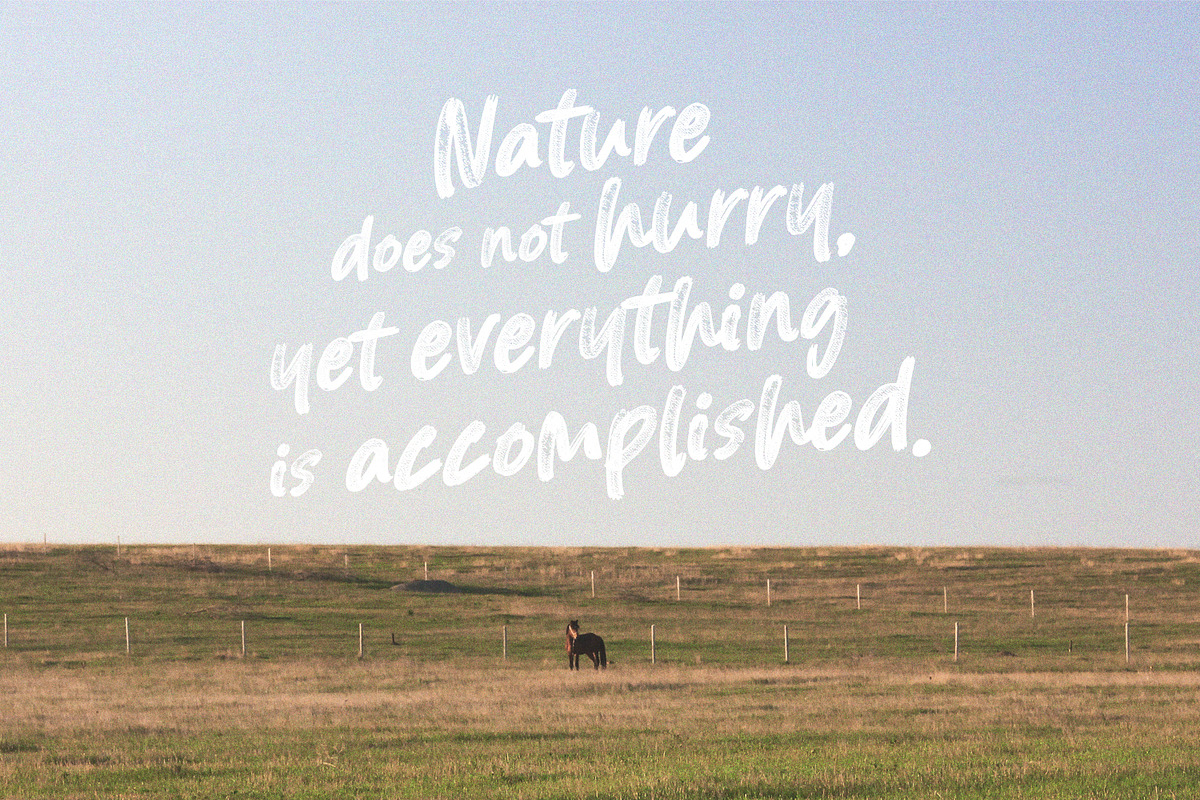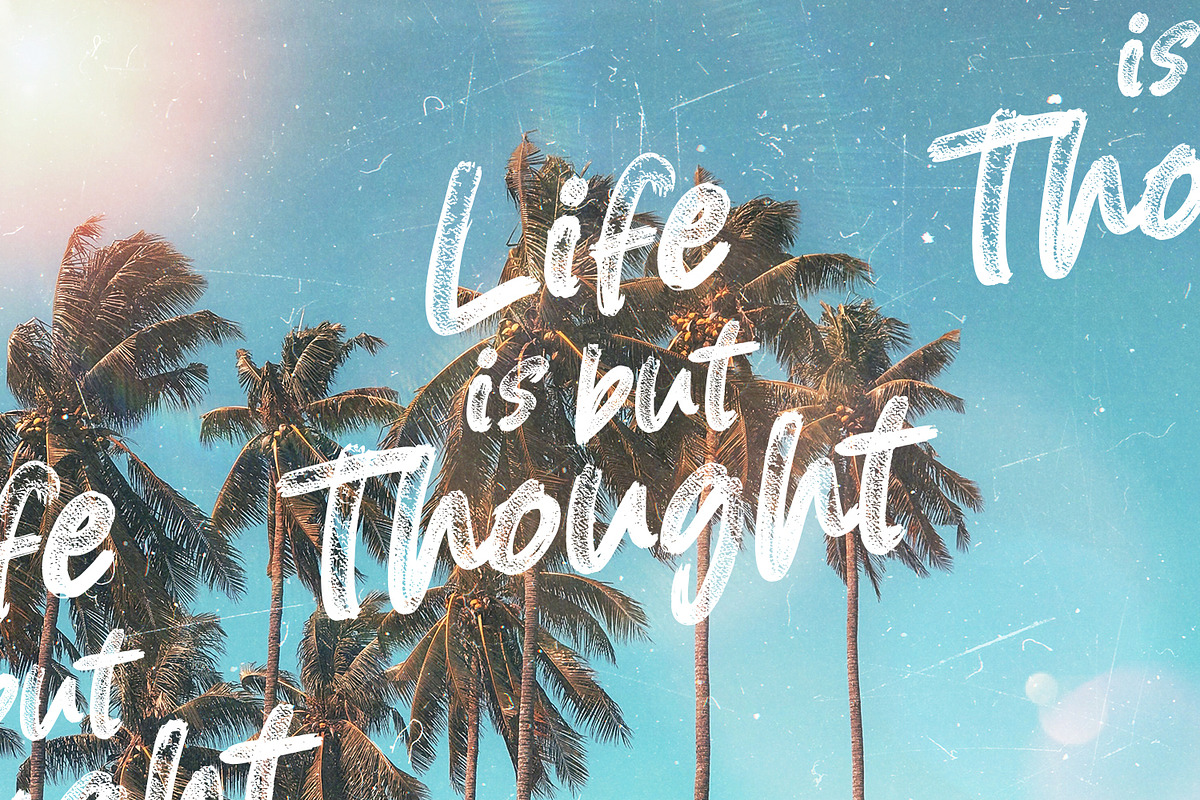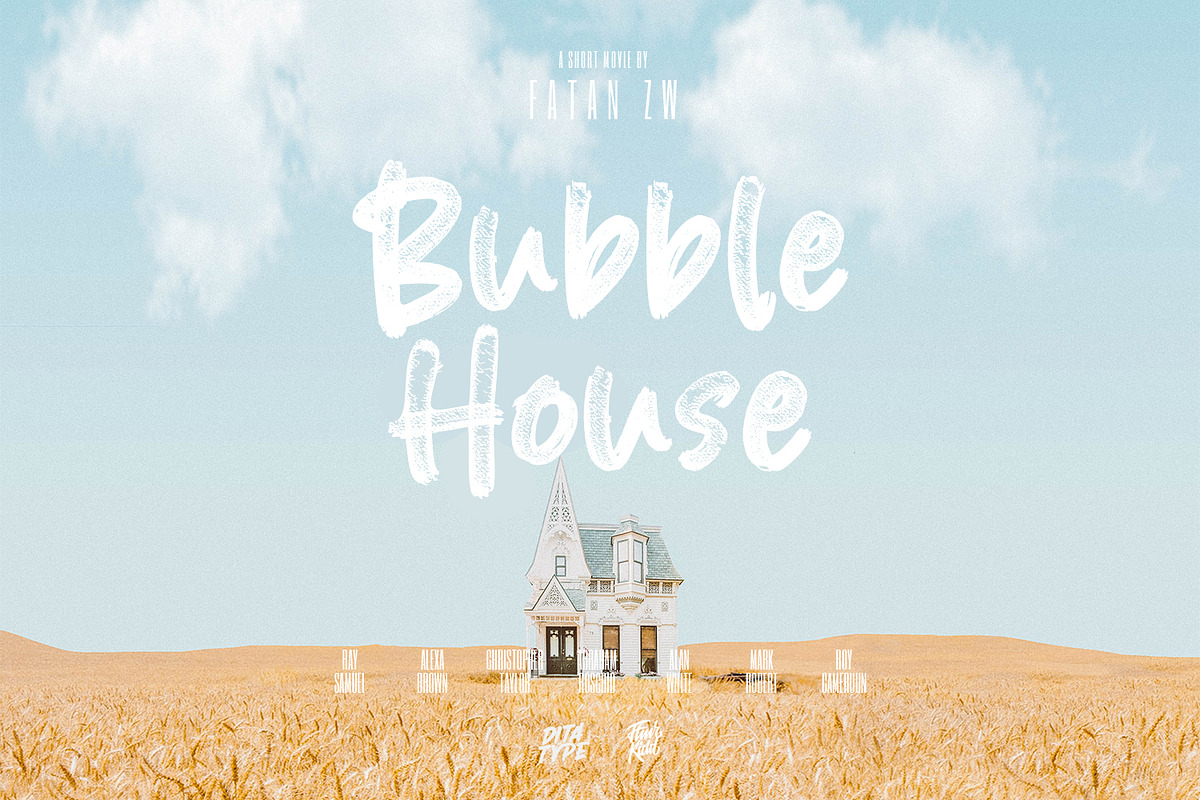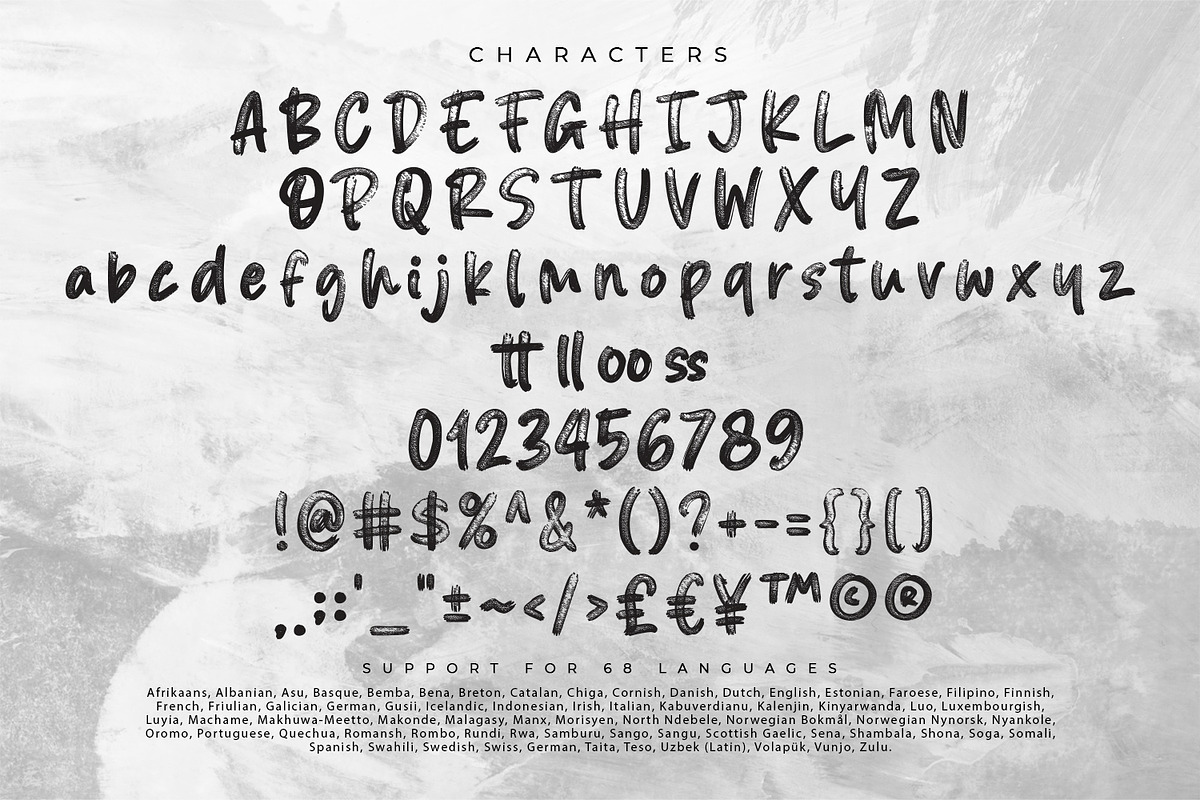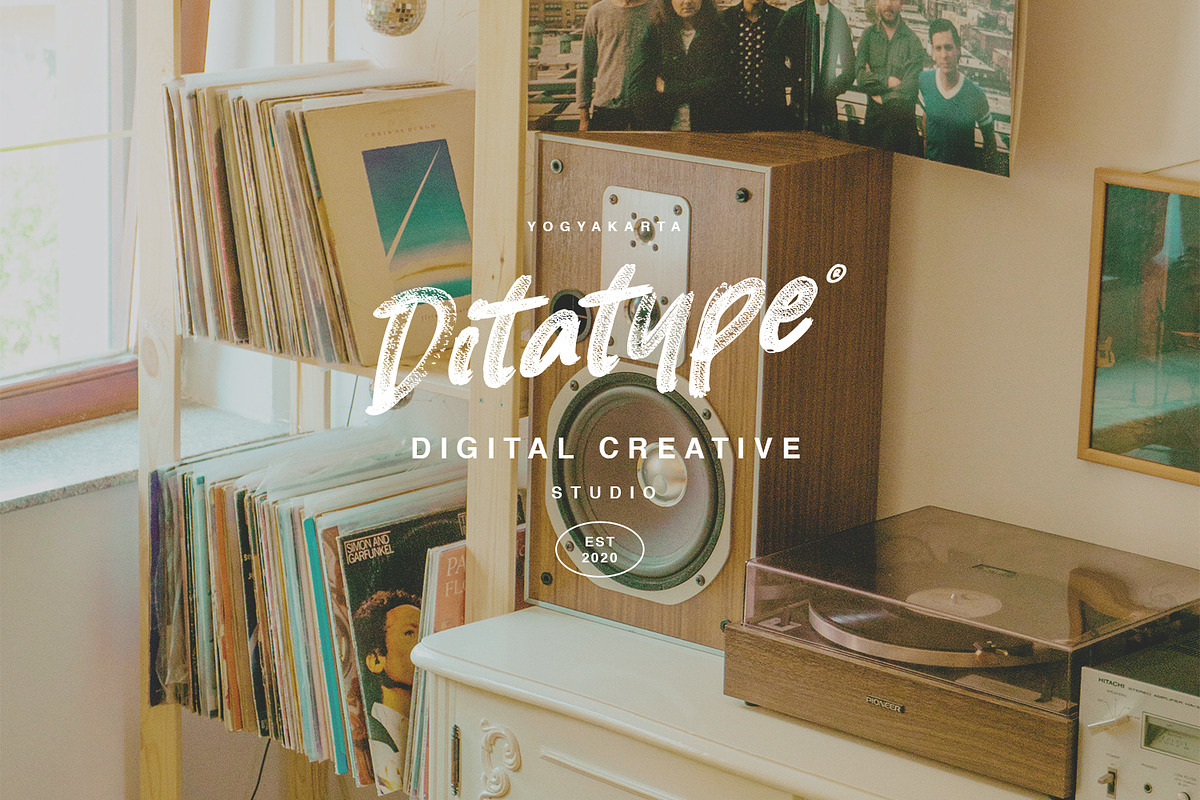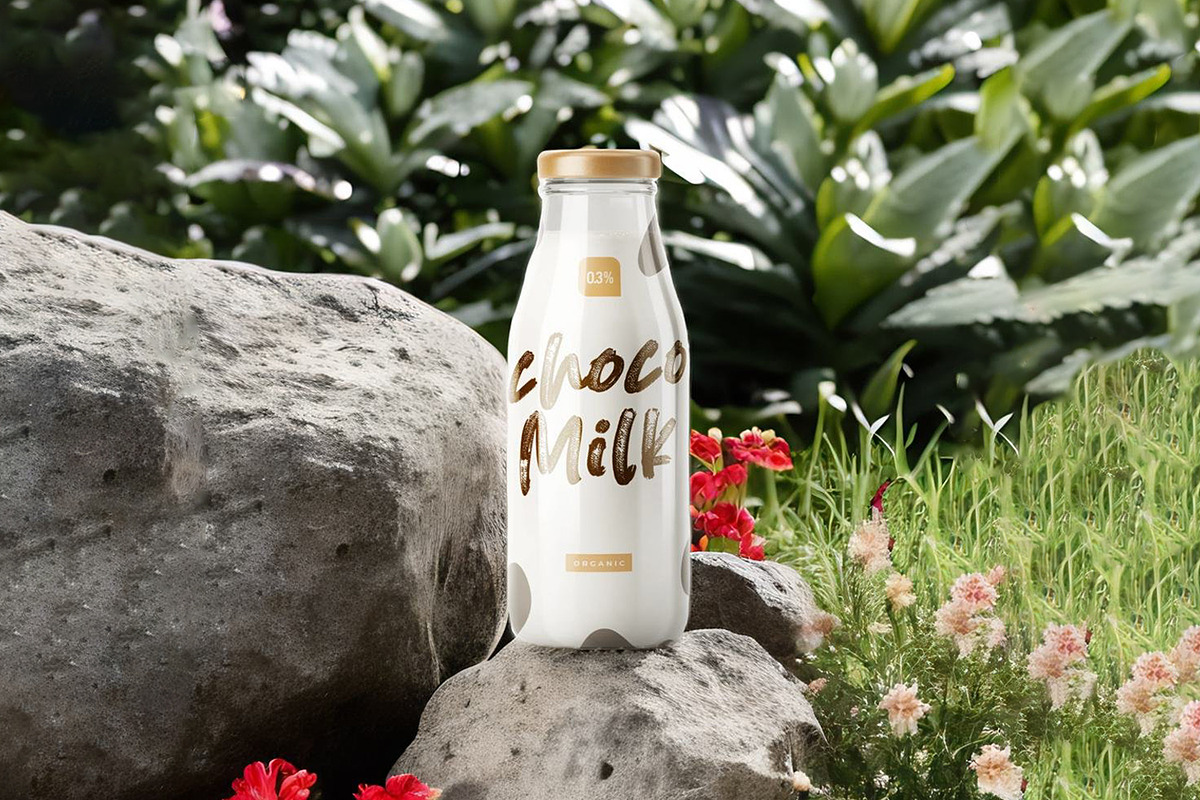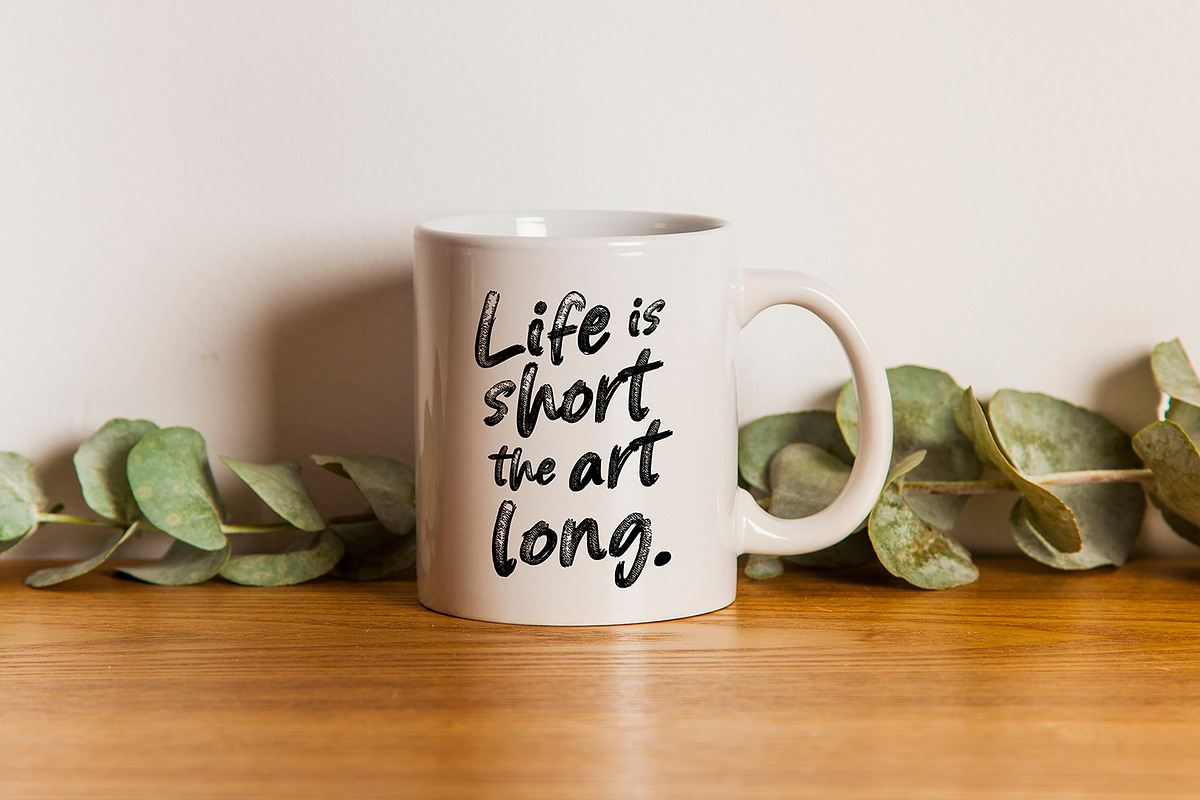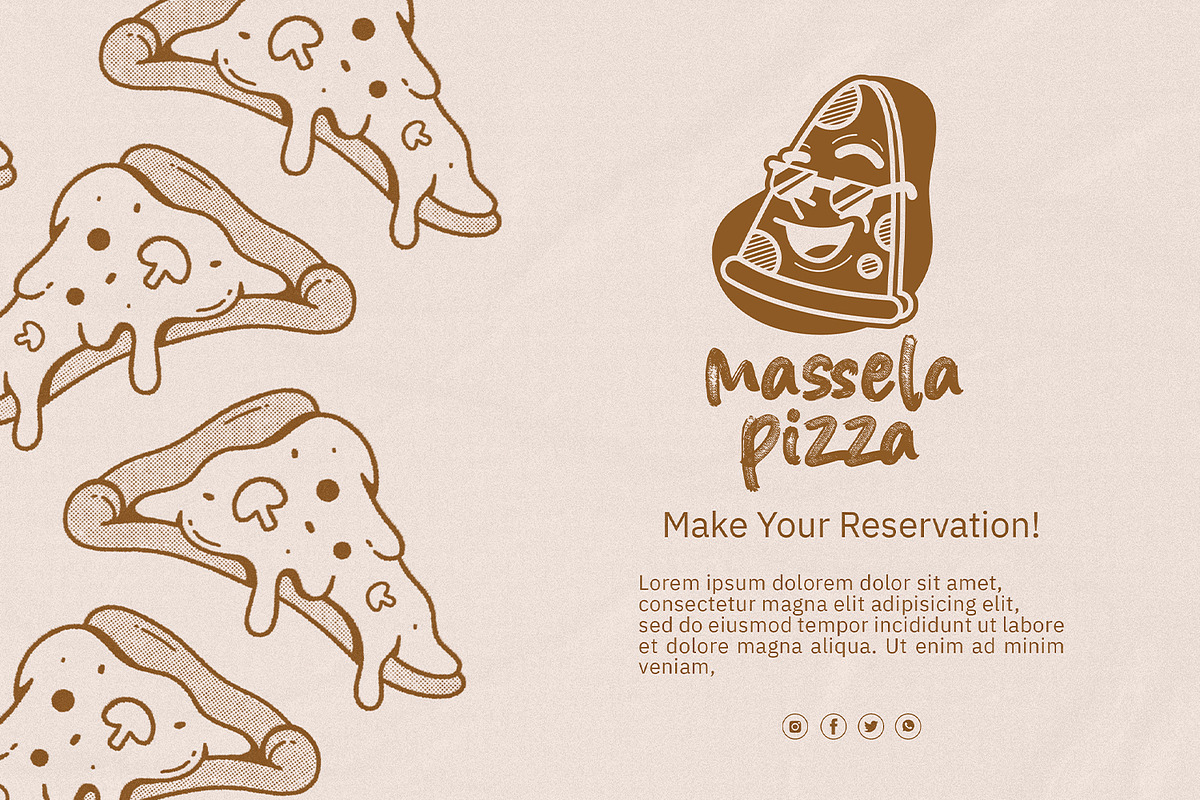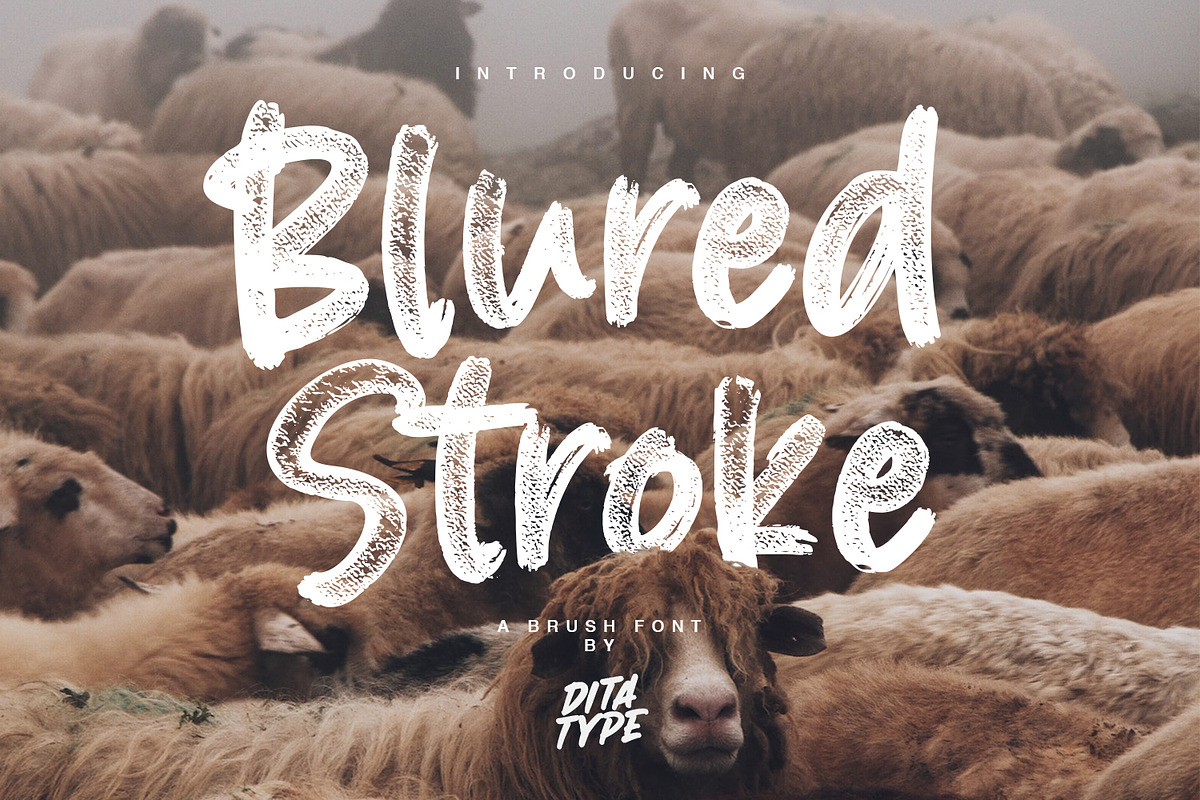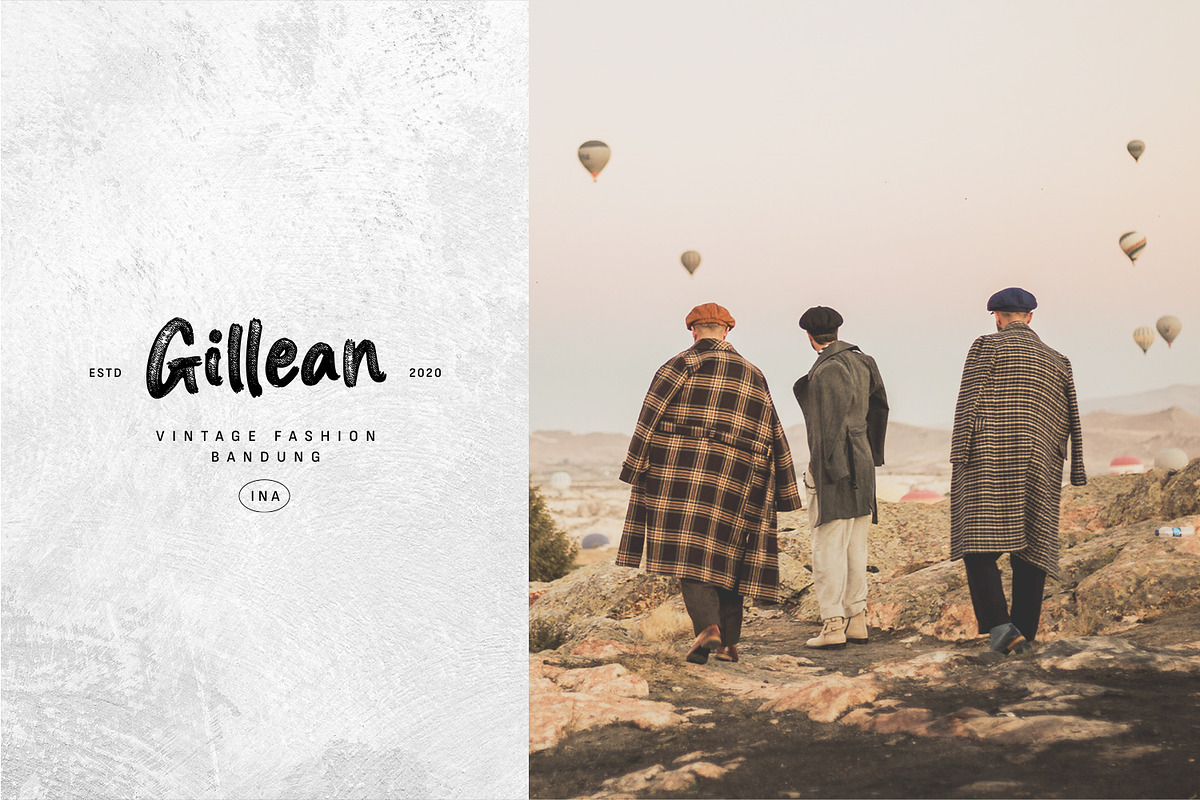
Blured Brush
Blured Stroke is a beautiful script font. Every letter in this font looks like it was created with a skillfully swung brush. The subtle and soft brush strokes are clearly visible at every angle and bend, giving the entire font an artistic and expressive feel. The ends of each letter tend to be rounded, giving it a soft and elegant touch. This font is designed with detail and a perfect balance between thick and thin strokes. The thicker lines bring out strength and firmness, while thinner lines add softness and elegance to this font. The perfect combination of these differences creates an eye-catching visual harmony and expresses a unique writing style. The colors used in this font can vary, but to maintain a soft impression, bright colors would be the right choice. The letters remain legible and understandable because they have clear outlines. Enjoy the various features available in this font.
Blured Stroke fits best for any design projects that want to convey tenderness, friendliness and creativity. This font can be used in the invitations, greeting cards, brand logos, promotional materials, and many other design projects that require a warm artistic touch and are full of personality. Find out more ways to use this font by taking a look at the font preview.